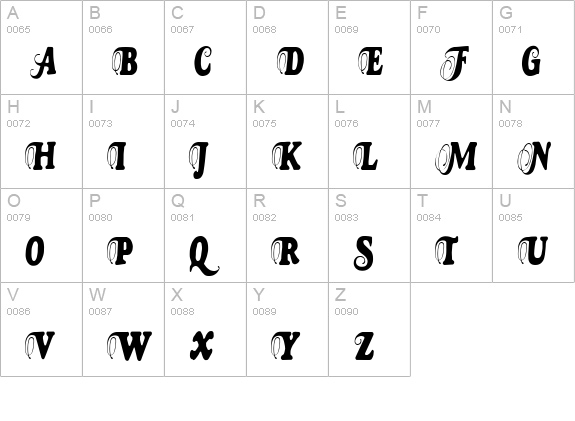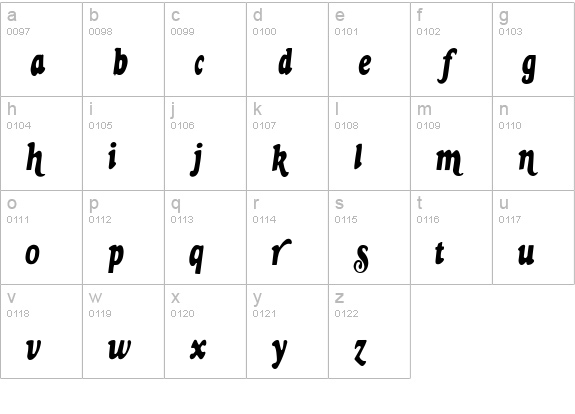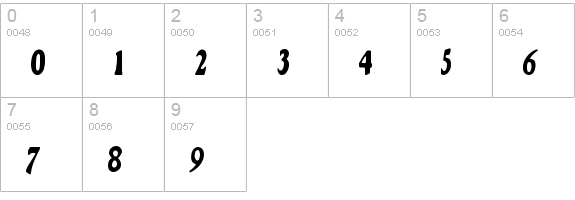
Goudy Fancy Font Details
Goudy Fancy font is a charming and elegant typeface that exudes sophistication and vintage appeal. With its intricate details and decorative flourishes, this font is perfect for adding a touch of class to any design project. Whether you're creating invitations, branding materials, or editorial layouts, Goudy Fancy font will elevate your work to a new level of refinement. The best part? Goudy Fancy font is available for free download at FontsMarket.com. Now you can access this exquisite font without any cost, making it even easier to bring a touch of timeless elegance to your designs. Don't miss out on this opportunity to enhance your projects with the beauty of Goudy Fancy font. Download it now and let your creativity shine!